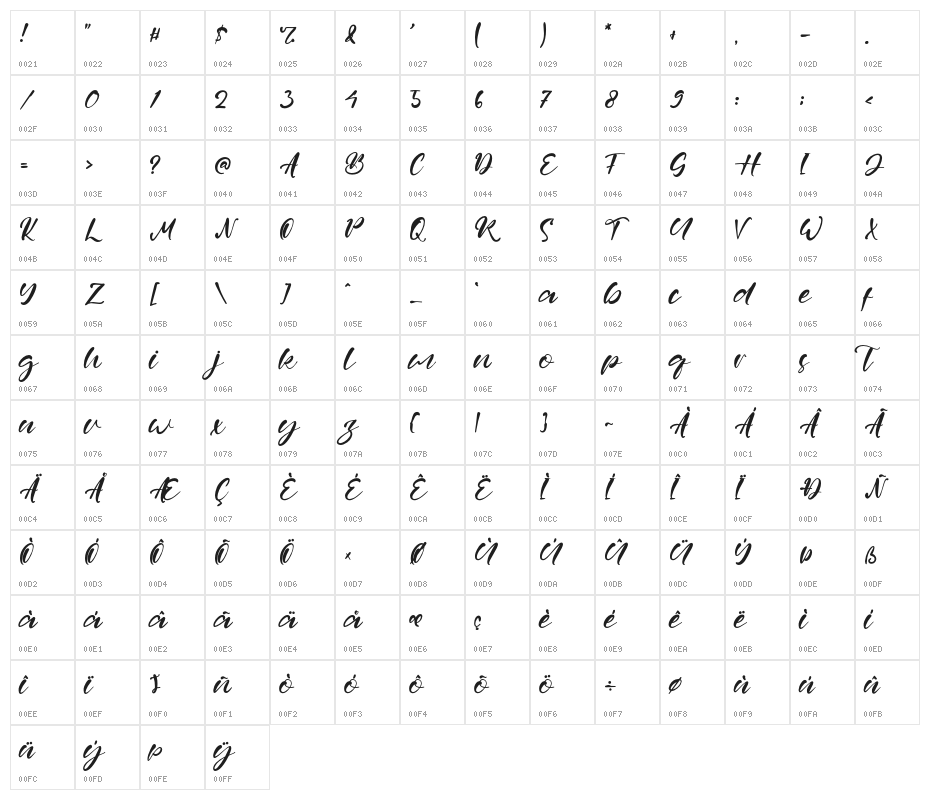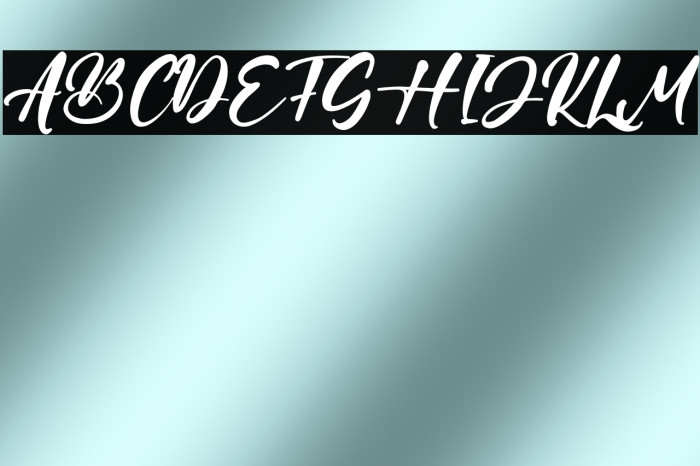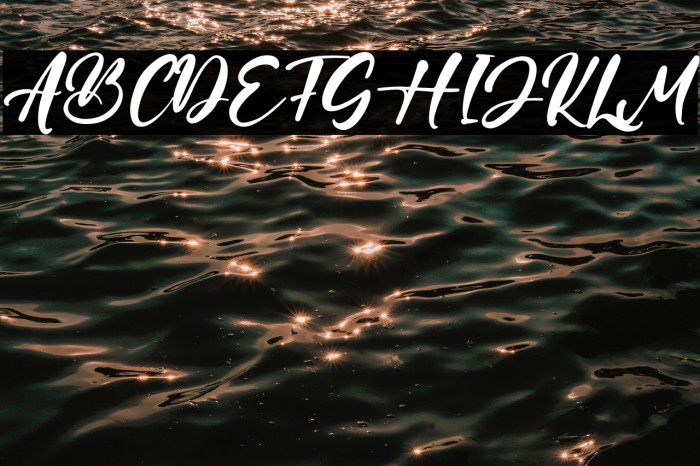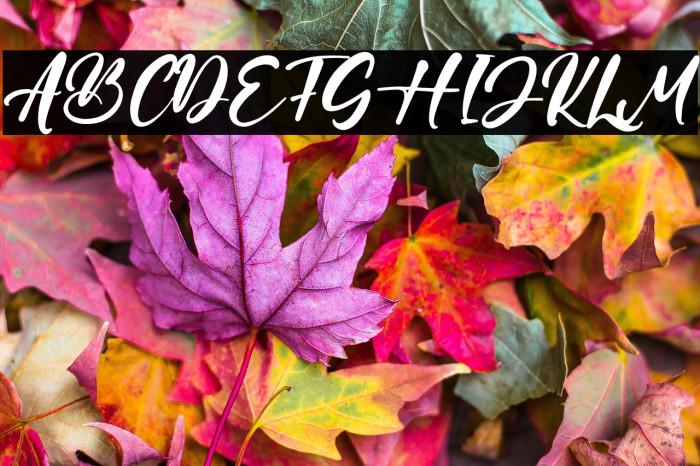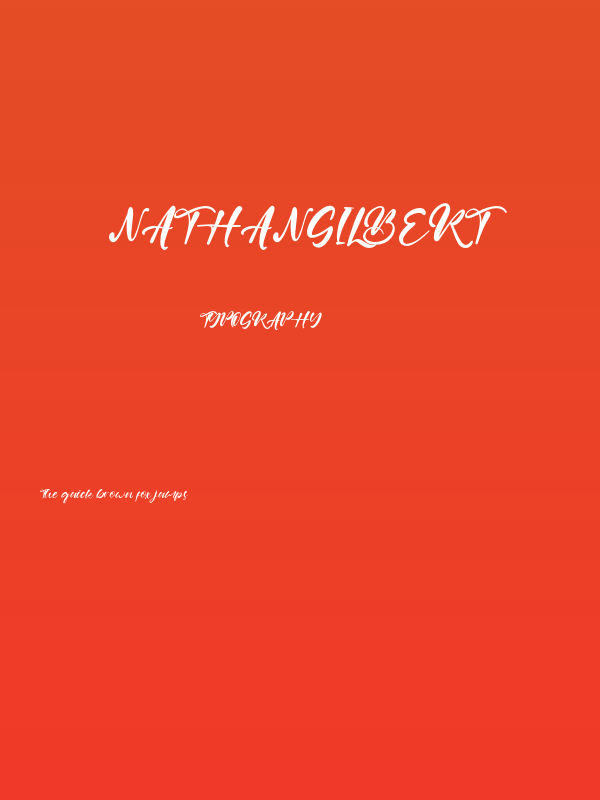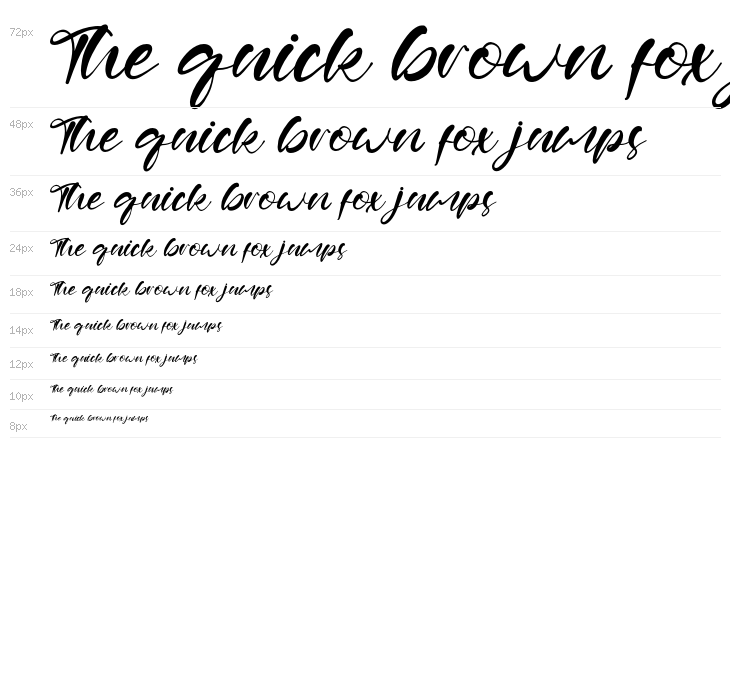
NathanGilbert Font
NathanGilbert Description
This font exhibits a flowing, cursive style that is both elegant and expressive. The letters are connected in a fluid manner, giving it a handwritten appearance. The uppercase characters are bold and slightly slanted, while the lowercase letters maintain a consistent flow with varying stroke widths. The numbers and special characters complement the overall style, adding a touch of sophistication. The font's design is well-suited for projects that require a personal or artistic touch, such as invitations, greeting cards, or branding materials. Its distinct style makes it stand out, while the legibility remains intact.
| Proposed Projects | Ideal for invitations, greeting cards, branding materials, and artistic projects. |